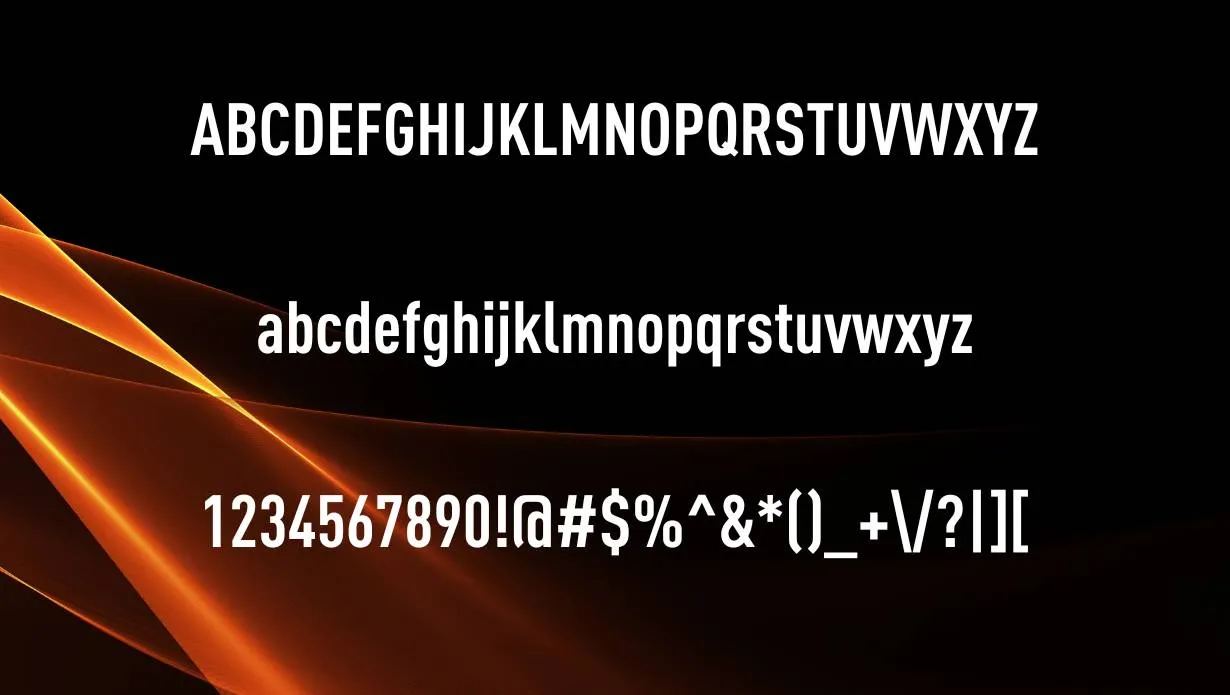
DINCOND font is a sleek, condensed typeface that finds widespread use in various design applications. Its bold, clear letters make it ideal for signage, especially on roads or in public spaces, ensuring visibility and easy readability from a distance.
| Name | DINCOND Font |
| Designer | Tagir Safayev |
Moreover, its modern and professional appearance makes it a popular choice in corporate settings for branding materials, such as business cards, letterheads, and presentations. This font’s simplicity and legibility also make it a favorite for digital media, being utilized in web design and app interfaces for a clean, straightforward look that remains appealing to users.